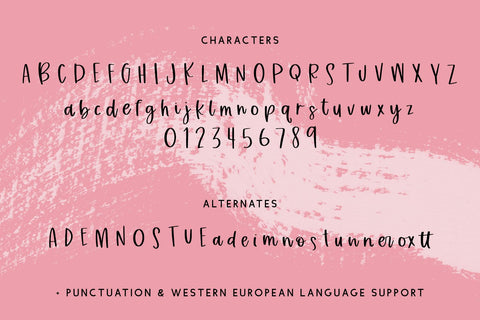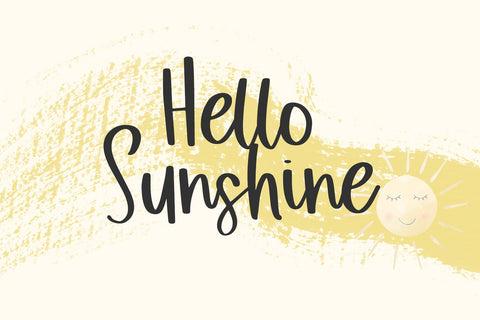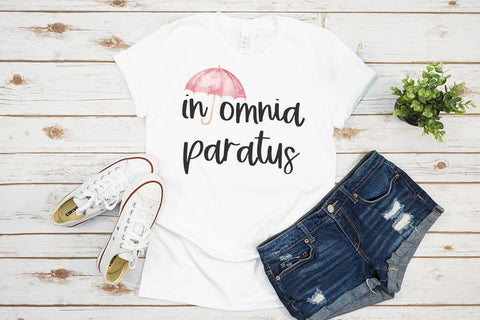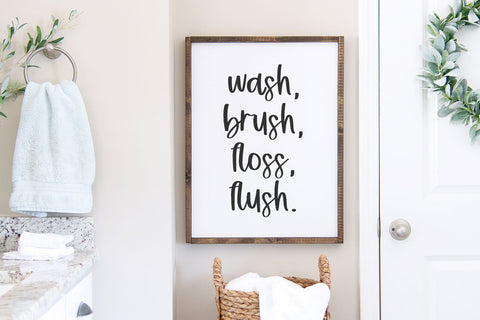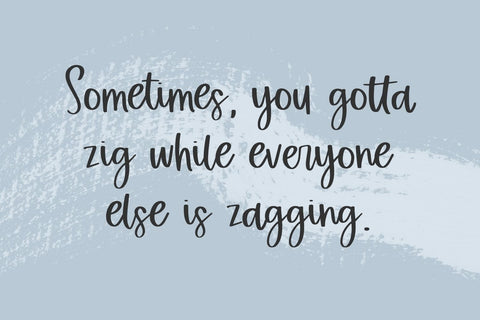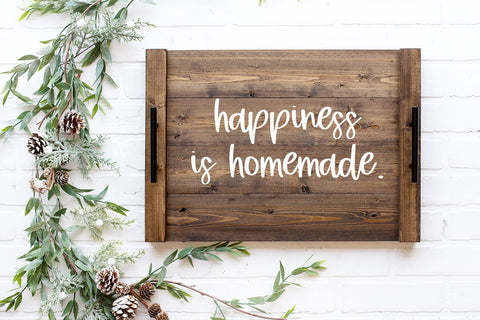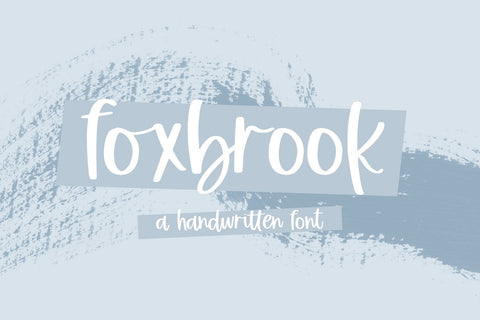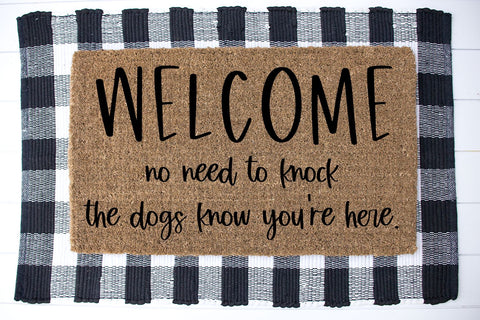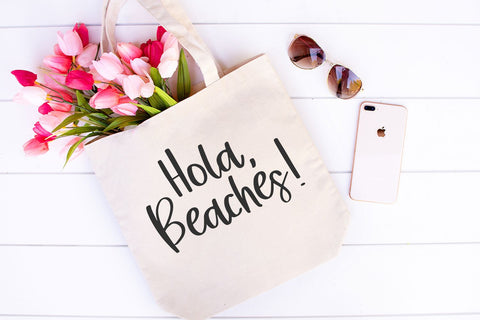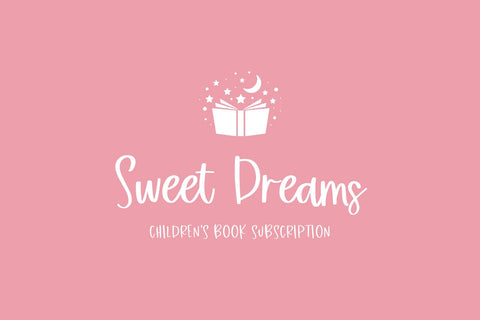
Foxbrook Handwriting Font
Introducing Foxbrook, a neat handwritten font.
Foxbrook is best for:
- feminine, crafty projects with your Cricut or Silhouette machine, or your SVG design business
- digital planner apps like Goodnotes or Notability
- whimsical farmhouse decor and crafts
- logos + branding
- website design + website accents, blog design
- quote graphics for social media
- feminine graphic tee shirt design & other apparel
Foxbrook includes:
- full upper + lowercase characters
- numbers + punctuation
- Western European Language Support
- 22 alternate characters
- 3 ligatures - er, ox, tt